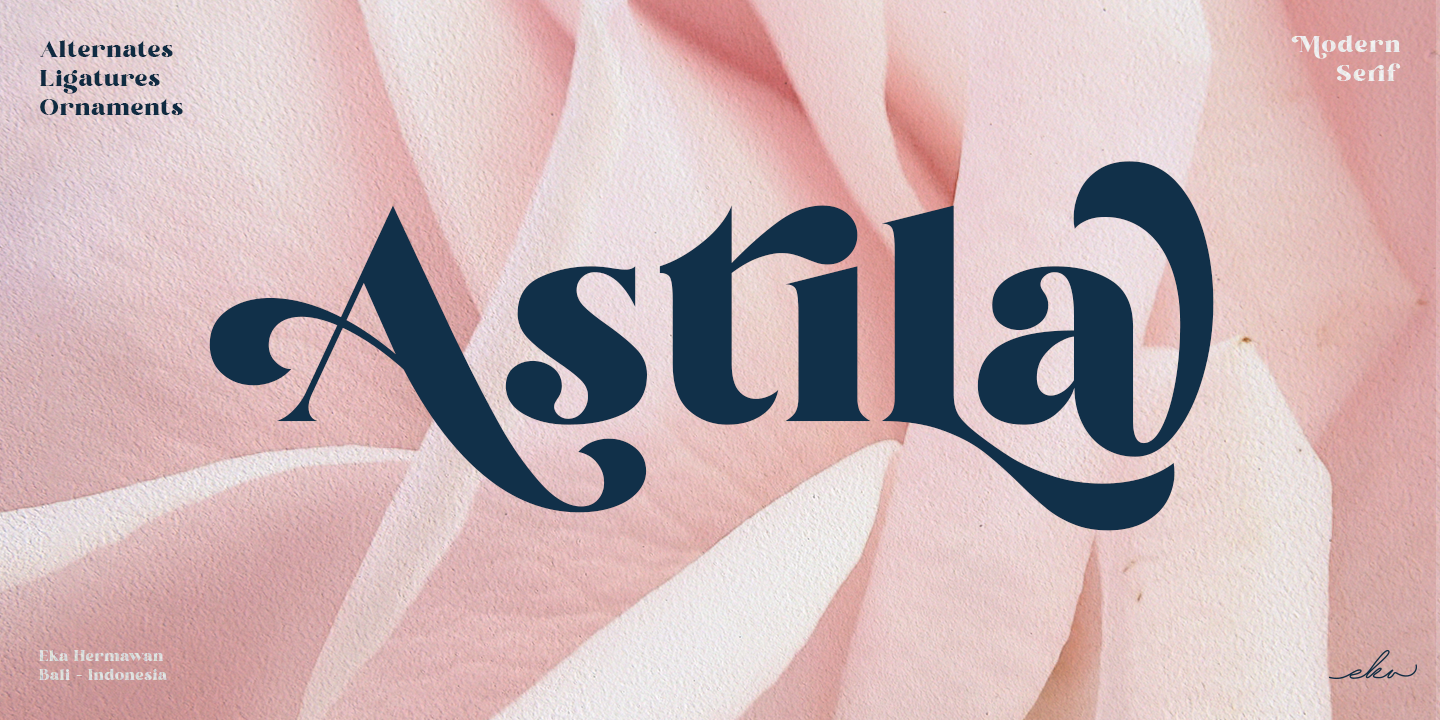
Astila Font Free Download is a refined and fashionable serif typeface, crafted to bring sophistication and elegance to any project. With its high-contrast strokes and graceful curves, Astila is perfect for editorial layouts, branding for luxury goods, wedding invitations, and high-end packaging.
The unique letterforms of Astila Font Free Download balance modern style with classic beauty, making it a favorite among designers looking to convey prestige, femininity, or timeless elegance. It works beautifully in both print and digital environments, especially in large-size headlines and minimalist layouts.